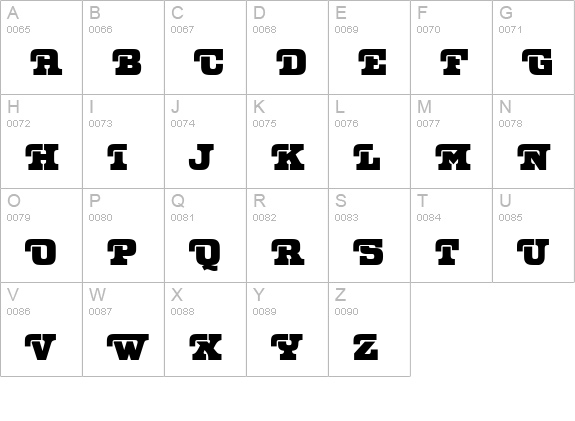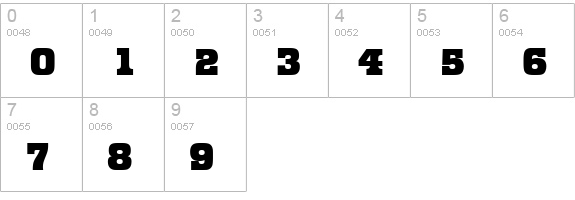
Otis-Regular Font Details
Otis-Regular is the standard, neutral variant in the Otis typeface family \xE2\x80\x94 well suited to general body text, paragraphs, and standard typographic work.
Otis-Regular font is a versatile and stylish typeface that exudes a sense of sophistication and elegance. Its clean lines and modern design make it perfect for a wide range of projects, from branding and advertising to editorial and web design. The balanced proportions and smooth curves of Otis-Regular font ensure excellent readability in both print and digital formats. What's even better is that Otis-Regular font is completely free to use, making it accessible to designers and creatives of all levels. You can easily download this beautiful font from FontsMarket.com and start using it in your projects right away. Don't miss out on the opportunity to add Otis-Regular font to your font collection today!